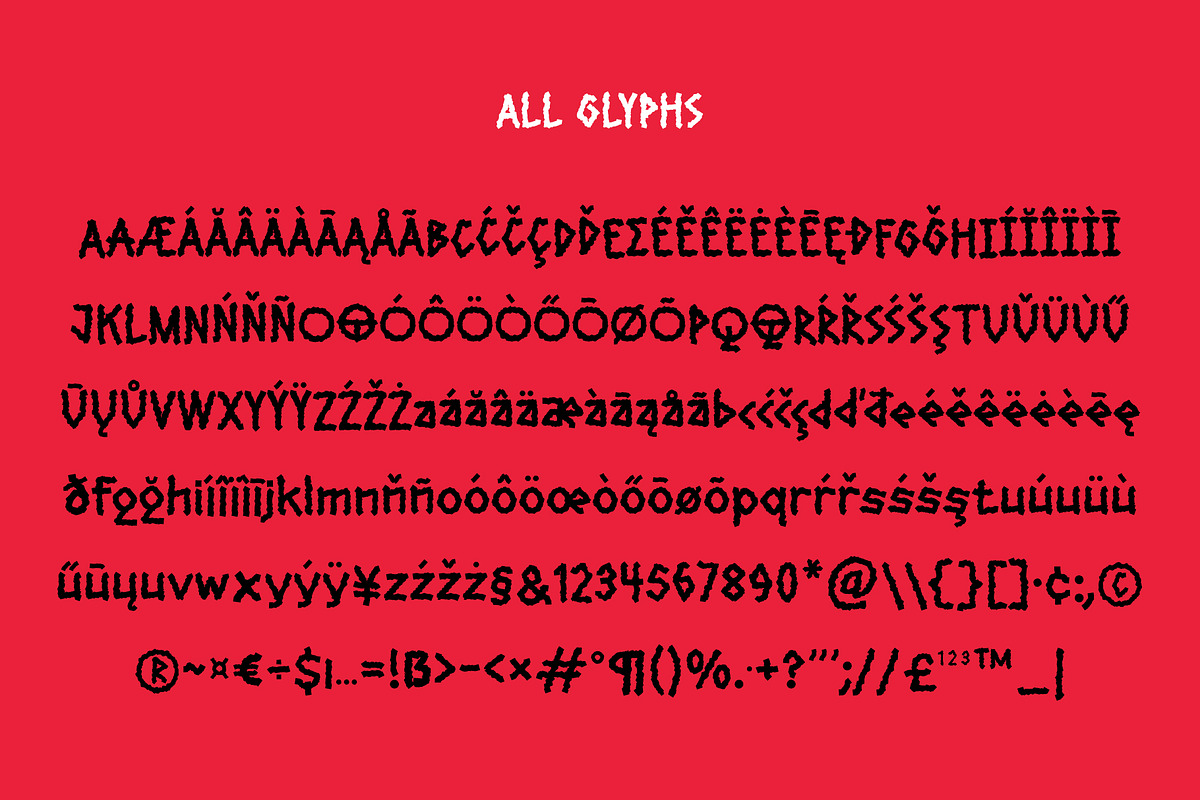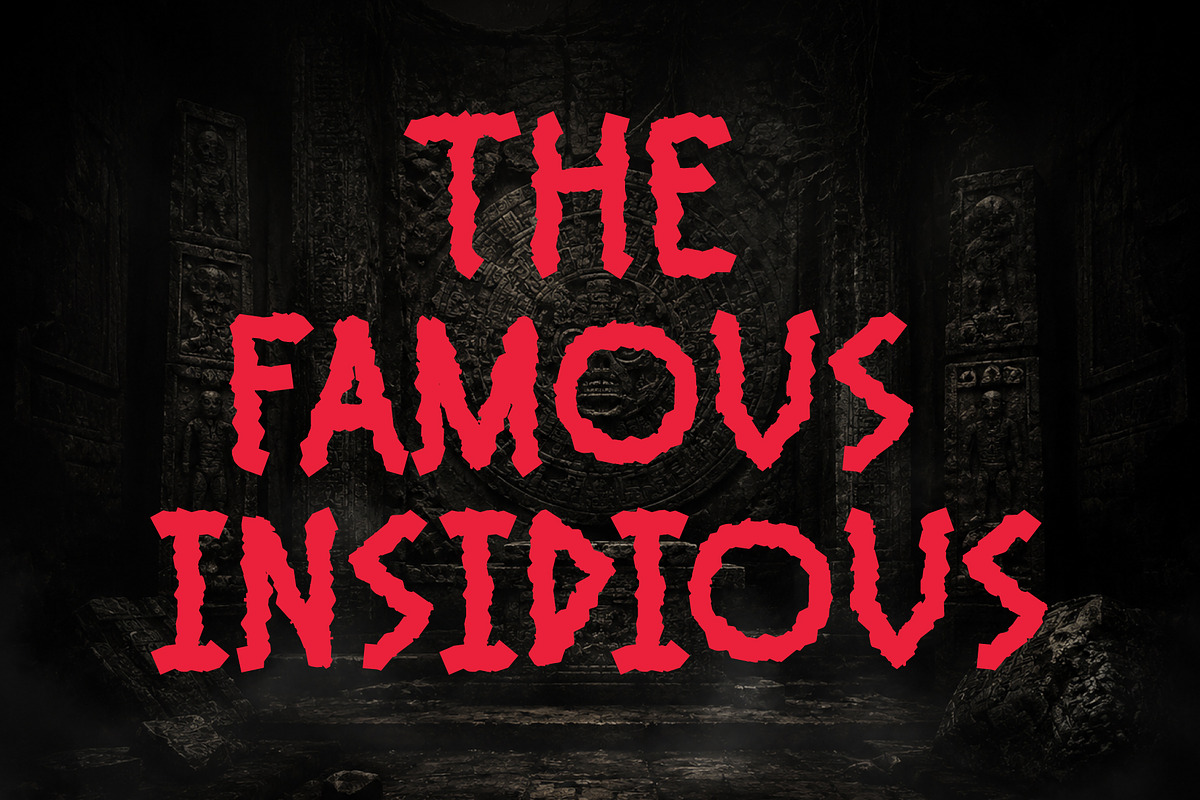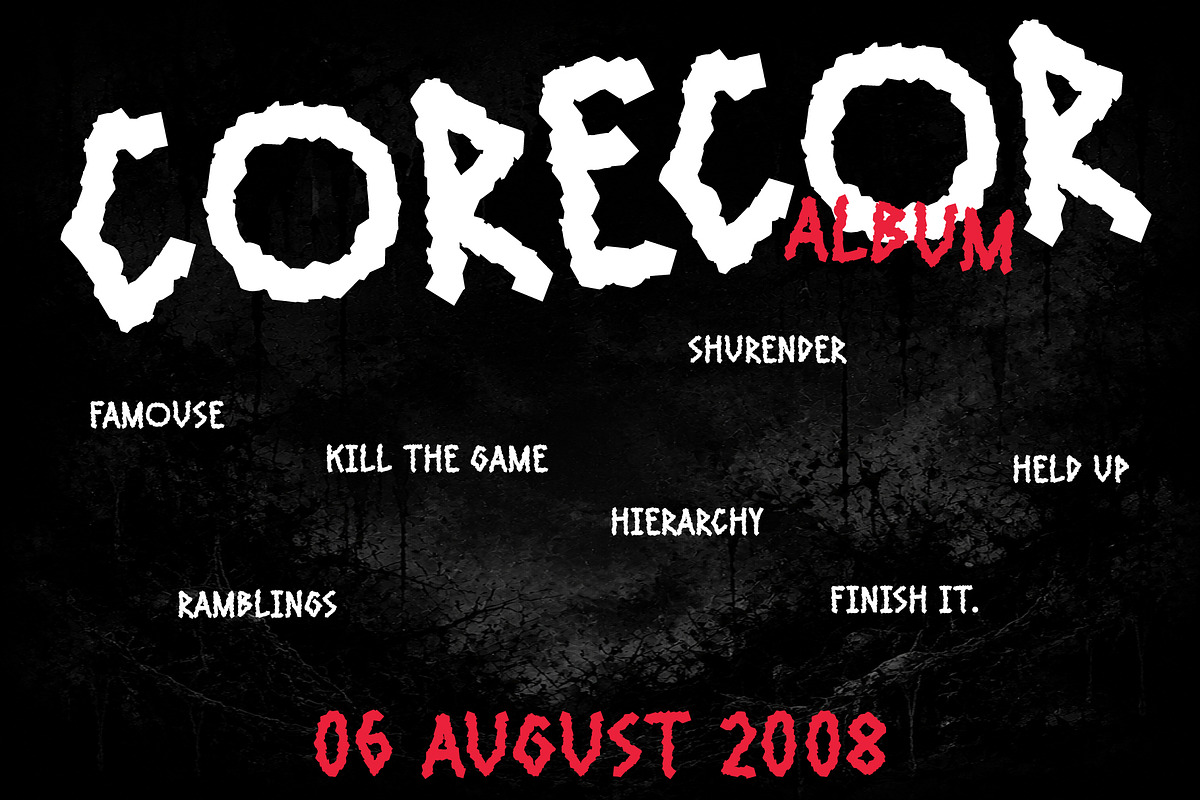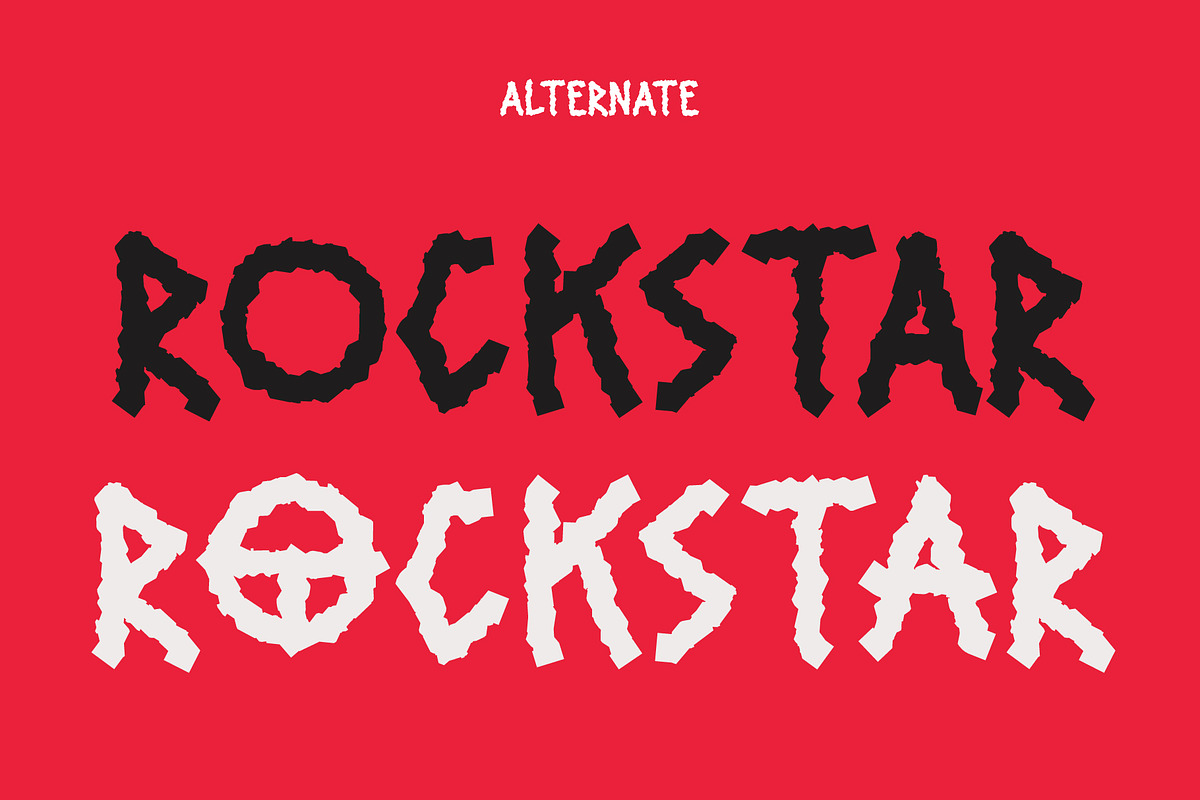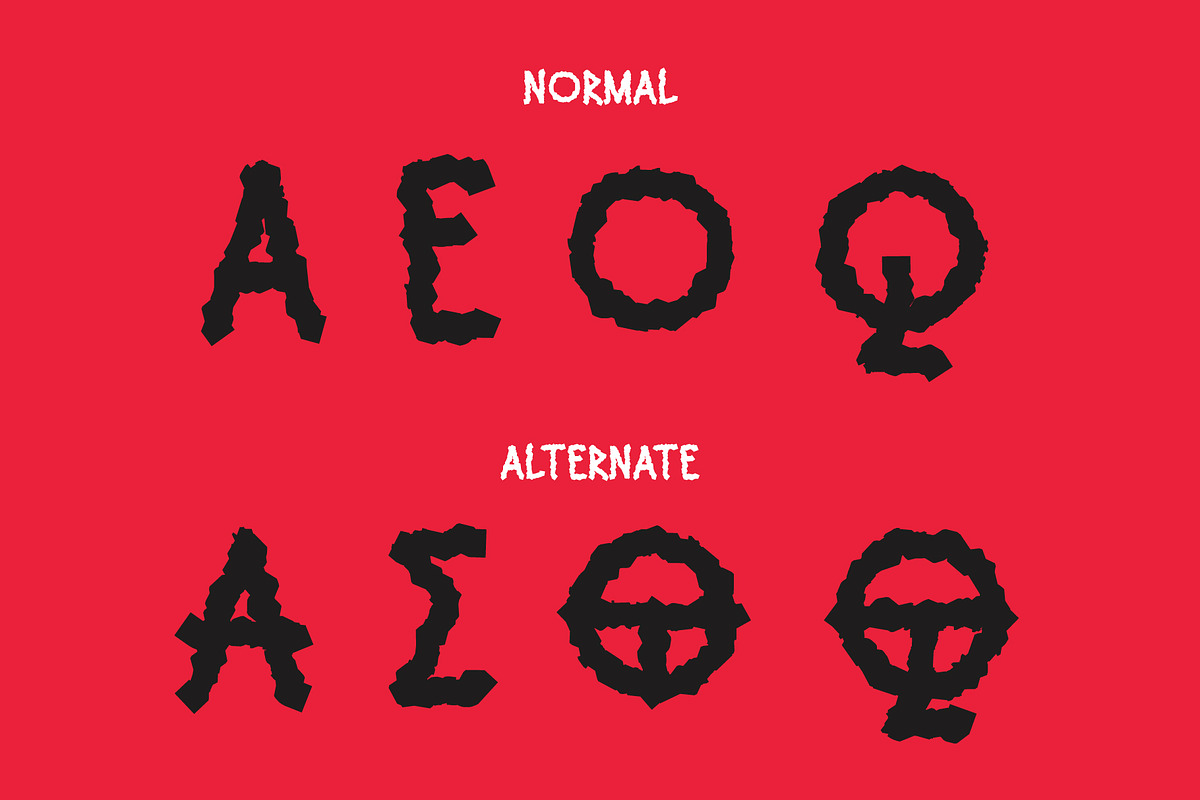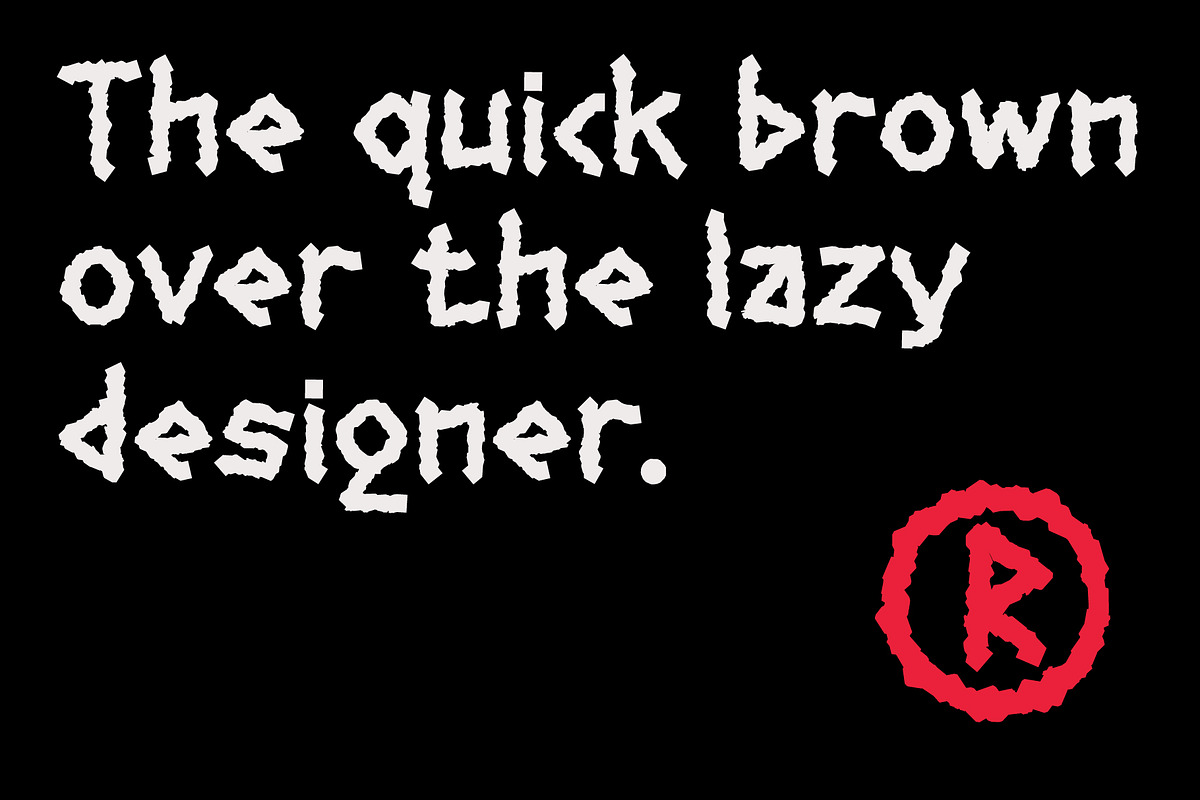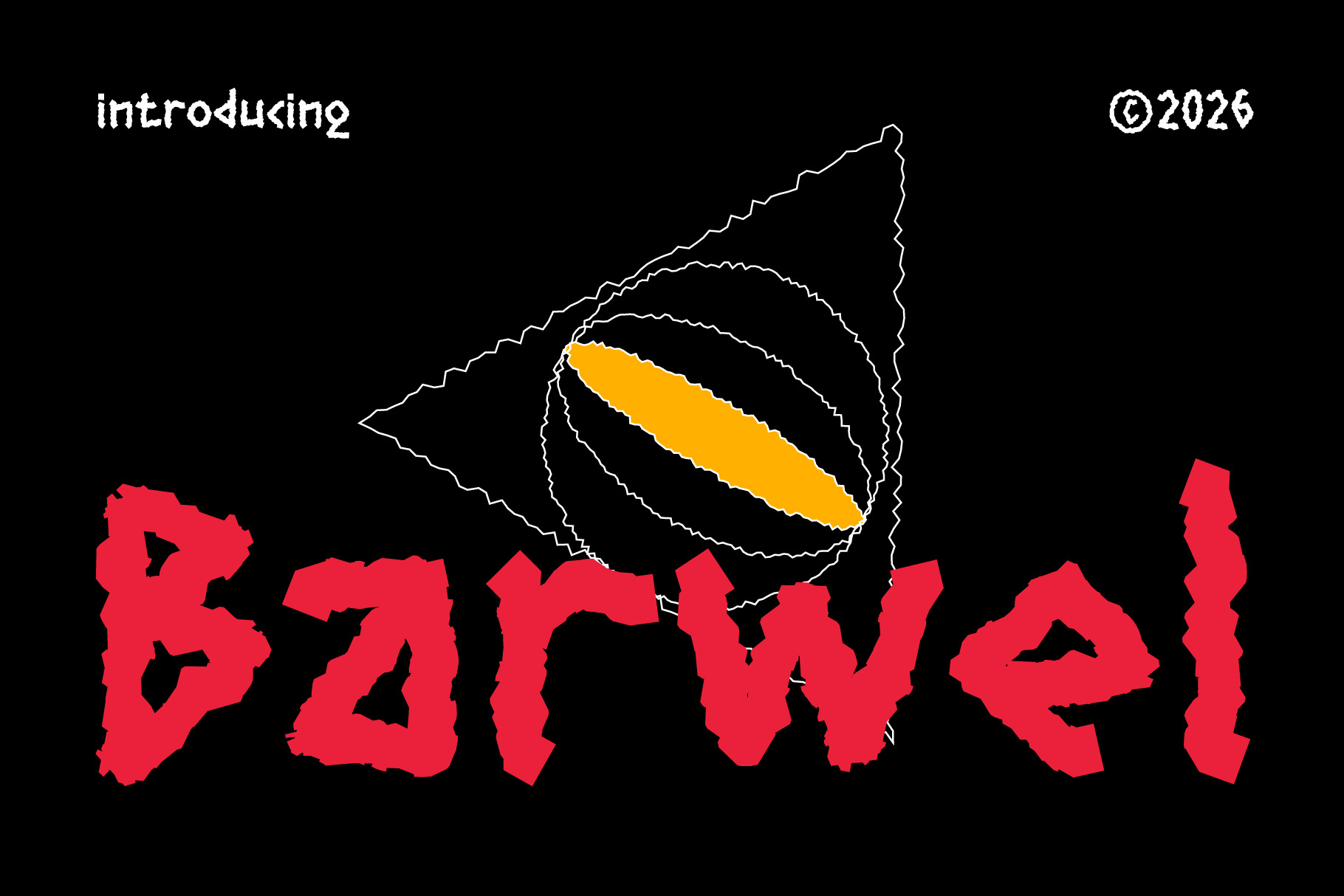
Barwel Font
Barwel is a handcrafted horror display font designed for creators who want to bring dark energy into their work. Inspired by horror movie posters, underground music culture, grunge typography, and experimental graphics, this font delivers a raw, imperfect, and expressive look.
Every character is intentionally rough with irregular edges, making your typography feel authentic, handmade, and full of attitude. Whether you're designing album covers, band merchandise, posters, apparel, social media graphics, branding, or packaging, Corecor helps your work stand out with a bold visual identity.
The font also includes alternate glyphs for selected characters, giving you more creative freedom to build unique and dynamic typography.
Horror movie posters
Album covers
Band logos
Streetwear & apparel
Punk & grunge branding
Halloween designs
Book covers
Editorial layouts
Packaging
Alternative visual identities